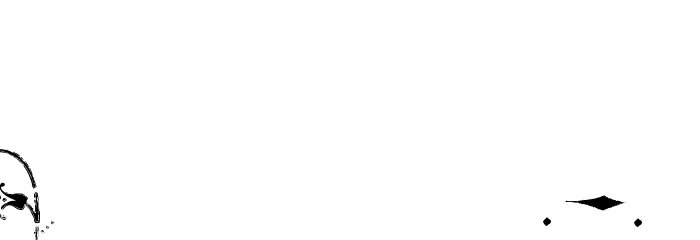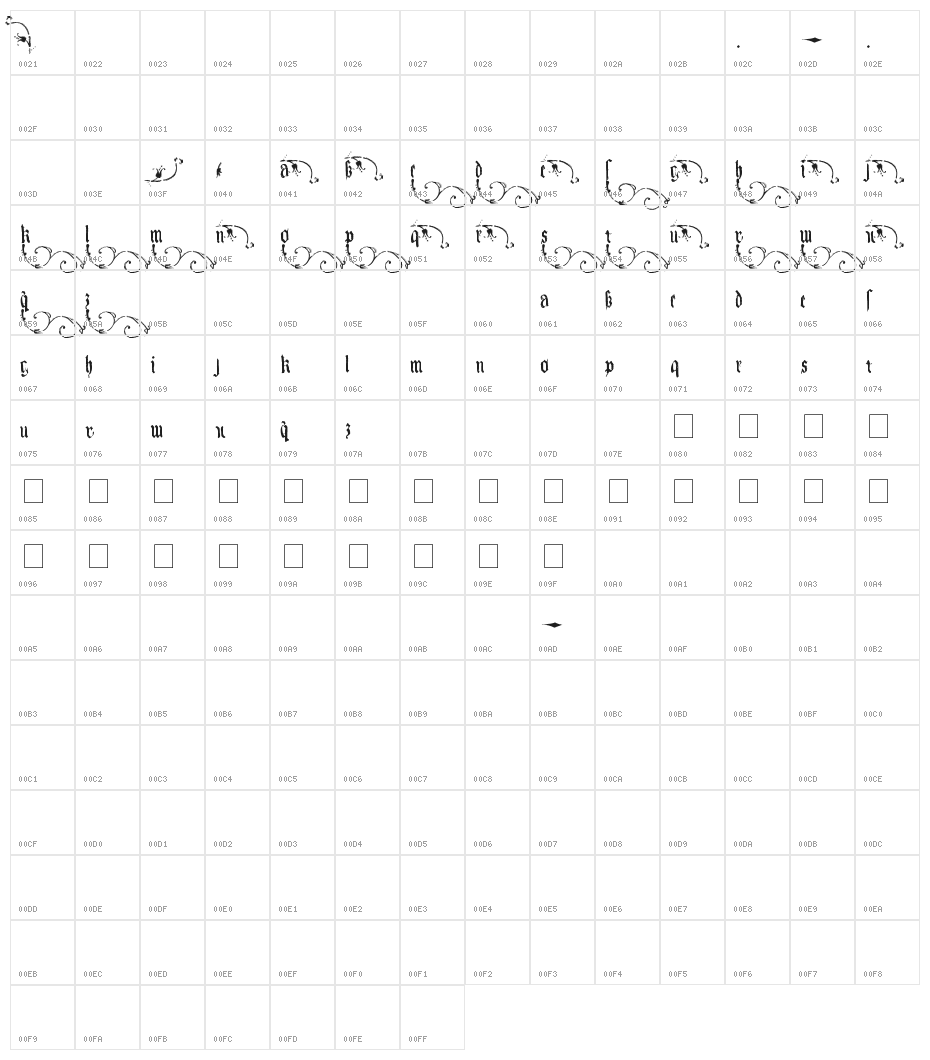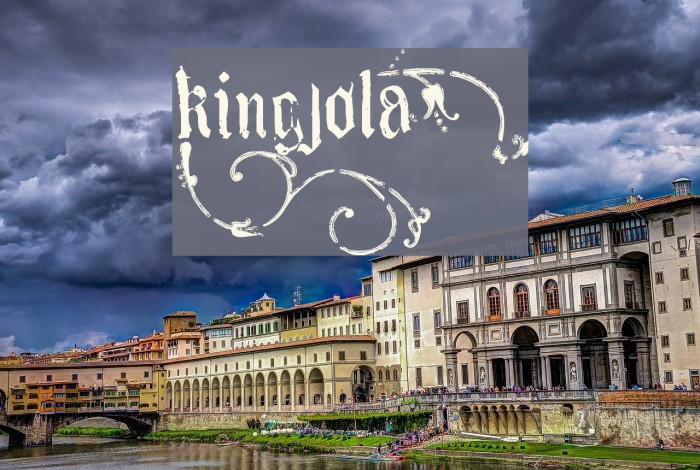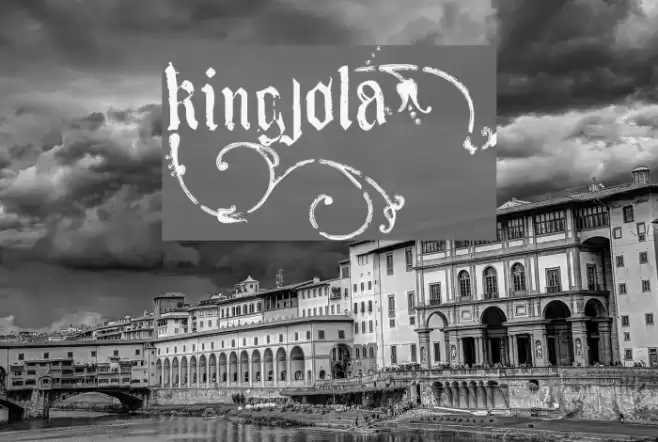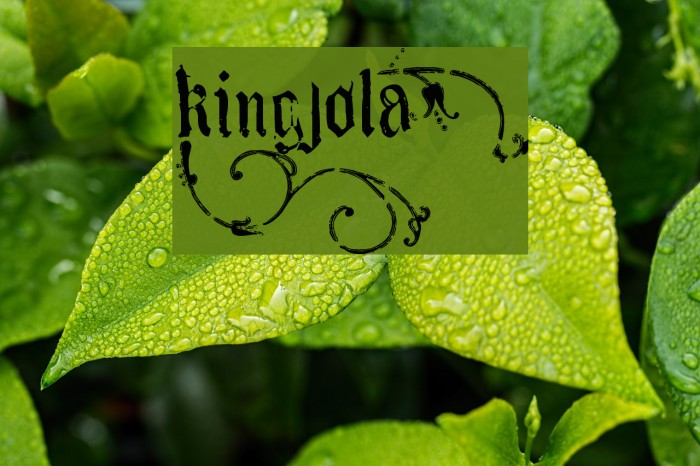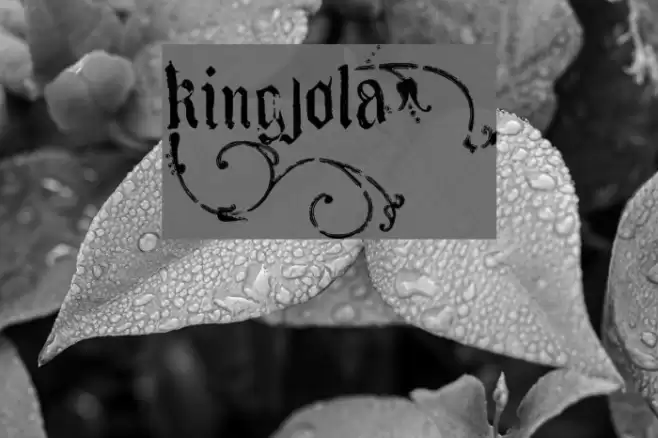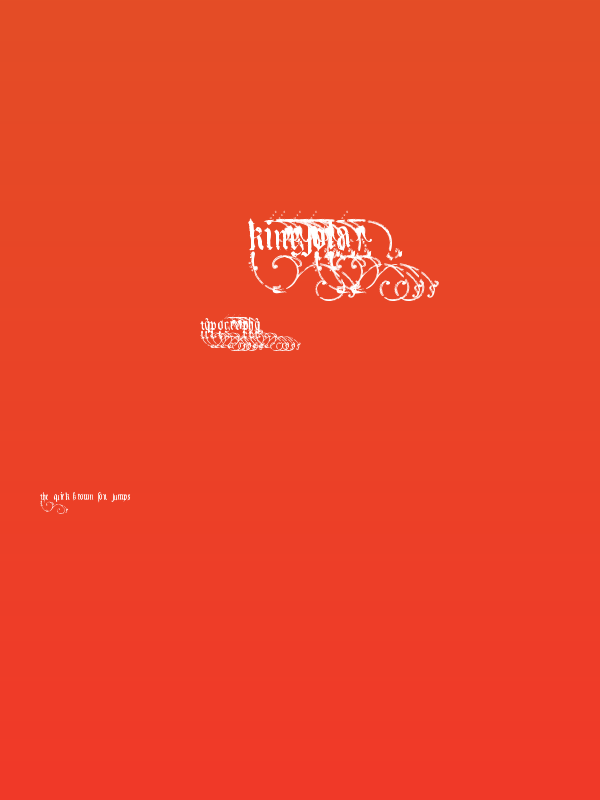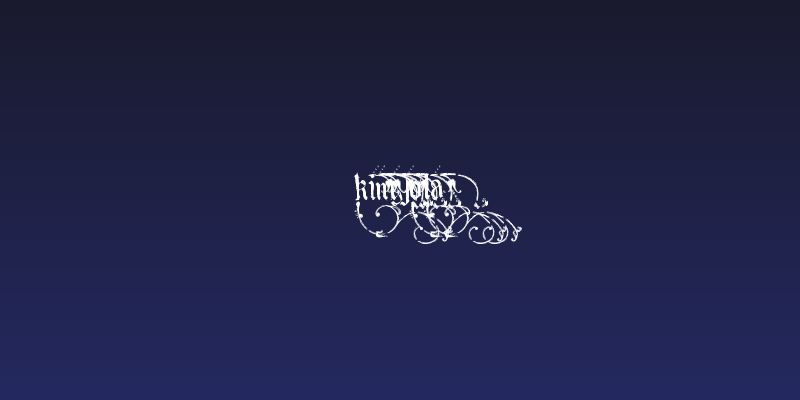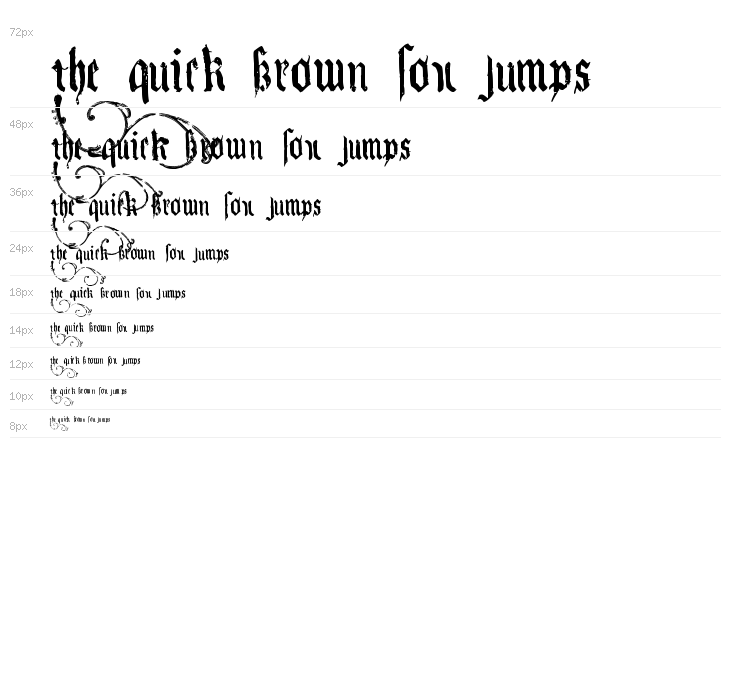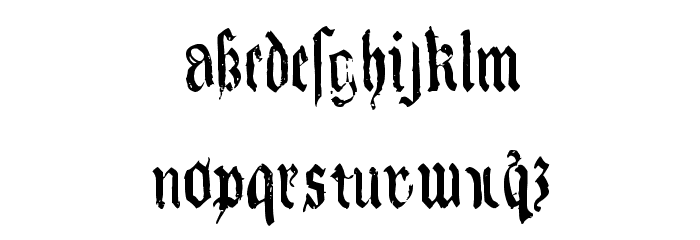
KingjolA Font
KingjolA Description
This font features a classic blackletter style, characterized by its ornate and intricate letterforms. The strokes are bold and angular, with sharp serifs and a distinct medieval aesthetic. The uppercase letters are particularly elaborate, with decorative flourishes that enhance their gothic appearance. The lowercase letters maintain a consistent style, with a slightly condensed form that adds to the overall density of the text. This font is reminiscent of traditional calligraphy, often seen in historical manuscripts and documents. Its unique style makes it suitable for projects that require a touch of antiquity and elegance.
| Proposed Projects | Ideal for historical documents, wedding invitations, book covers, or any design needing a vintage touch. |